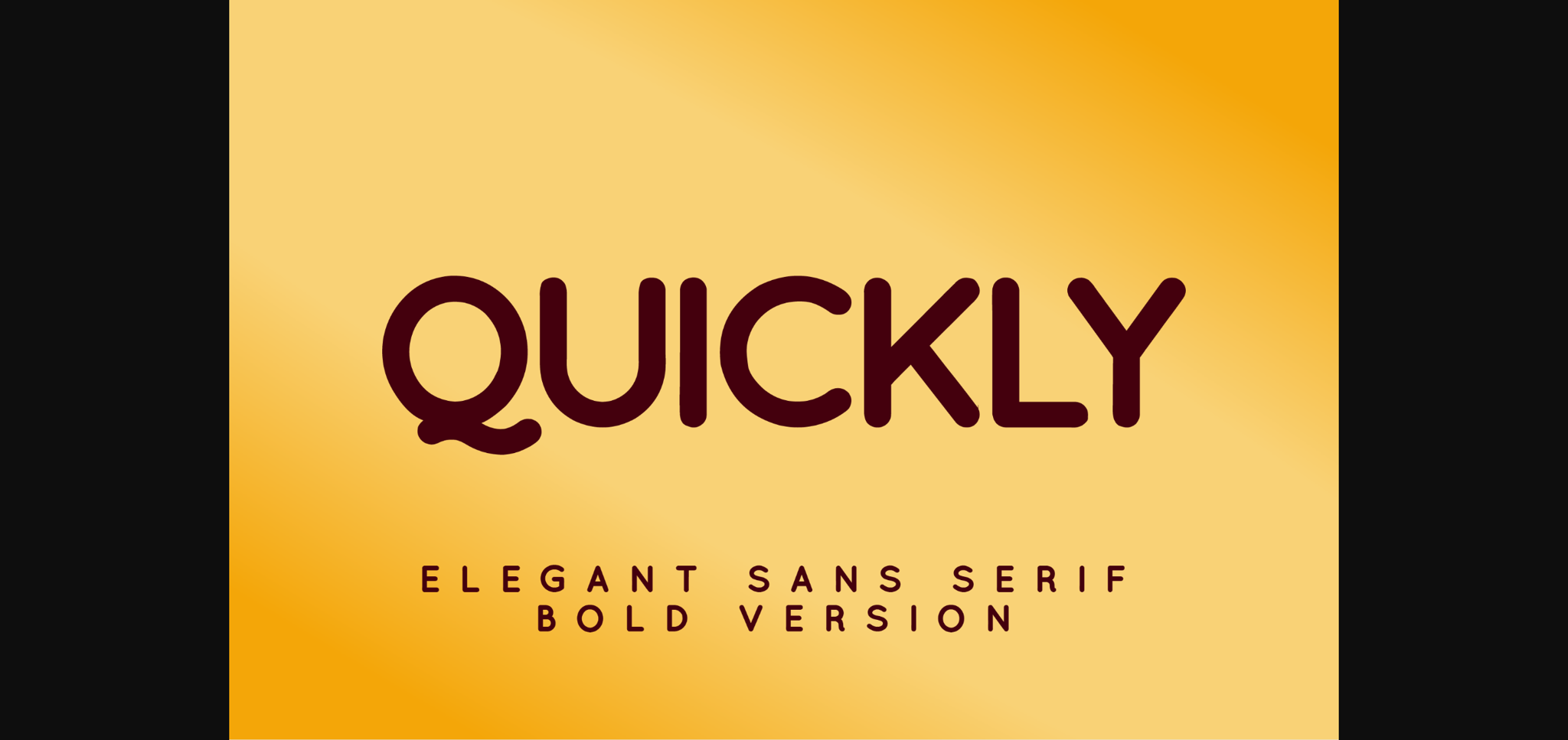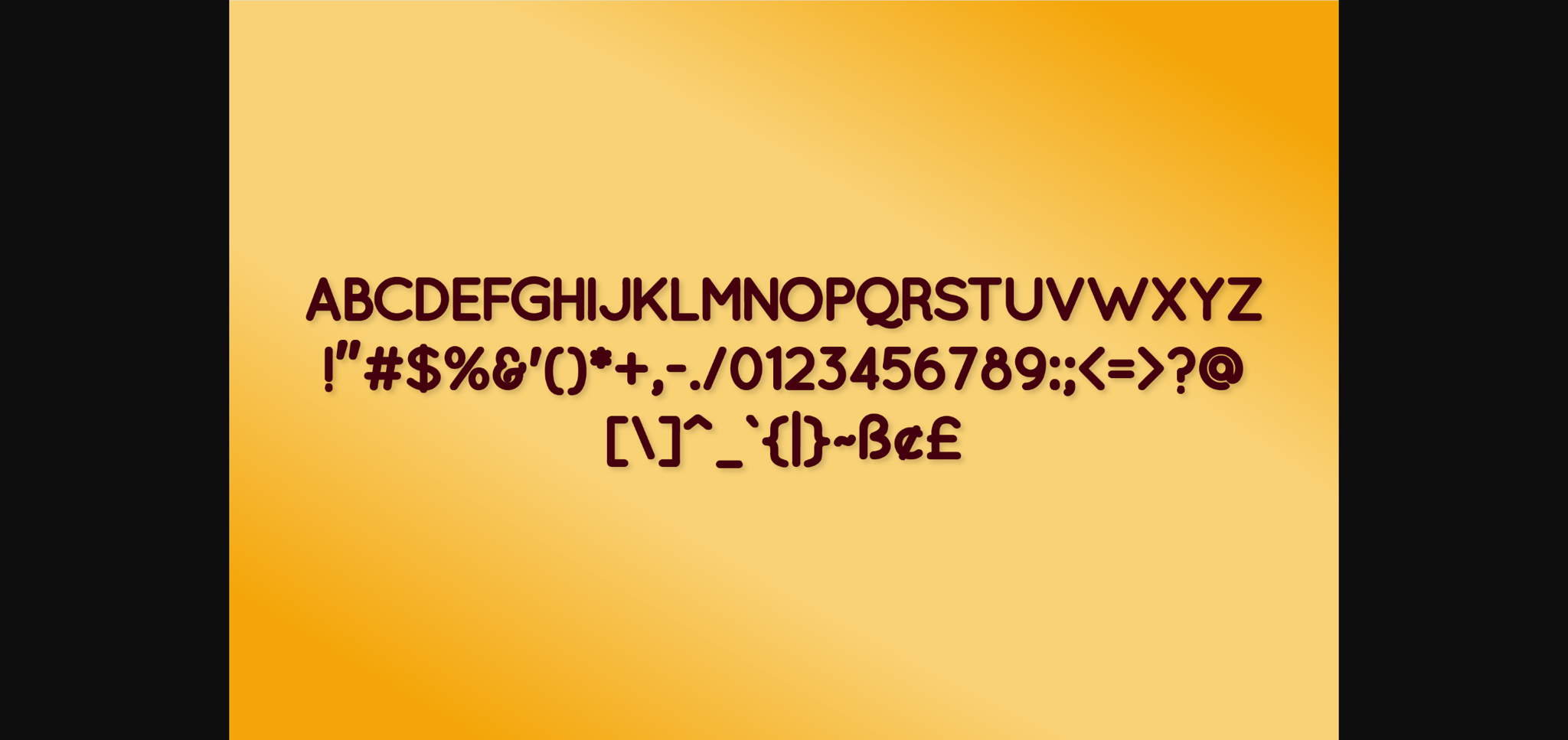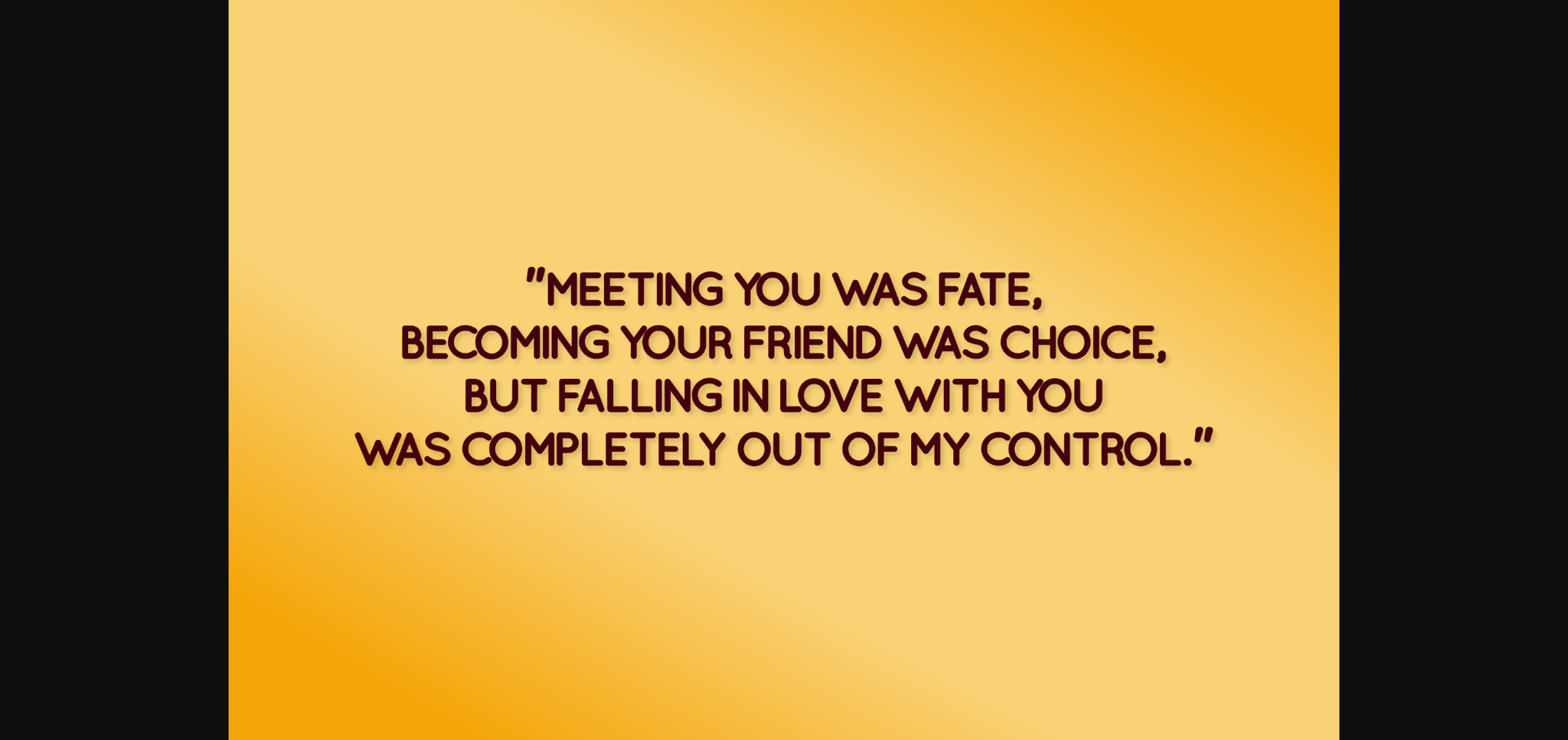
HomeSans Serif FontsQuickly Font Sans Serif Fonts Quickly Font FacebookXPinterestWhatsApp 1 of 5 ... Quickly Font Poster 2... Quickly Font Poster 3... Quickly Font Poster 4... Quickly Font Poster 5... About Quickly Font Quickly may look simple and casual, but it’s a surprisingly elegant sans serif typeface that features balanced curves and an overall friendly tone. DOWNLOAD NOW People also explored Share Works Font Blueshine Font White Rose Font Yellow Perforated Minimum Font Winter Font Cannabis Font Scrittura Ravvicinata Font At Home 297 0 TagsQuicklyQuickly Font Previous articleGreat Dome FontNext articleKlamoure Font LEAVE A REPLY Cancel reply Comment: Please enter your comment! Name:* Please enter your name here Email:* You have entered an incorrect email address! Please enter your email address here Website: Save my name, email, and website in this browser for the next time I comment. Personal Use Free Fuixg Personal Use Free Read more about this font December Christmas Personal Use Free Read more about this font Starting Live Personal Use Free Read more about this font Cleopatra Font Personal Use Free Read more about this font BLOG Best Fonts for T-Shirt Design – Top 2025 Picks In 2025, t-shirt design has become more than just fashion—it's a form of self-expression. Whether you're... Elegant Wedding Invitation Fonts – Handwritten & Script Fonts How to Cut Any Font on Cricut: Convert a Font to SVG (Free) Free Fonts Risk: Why Free Fonts Can Be Dangerous for Designers